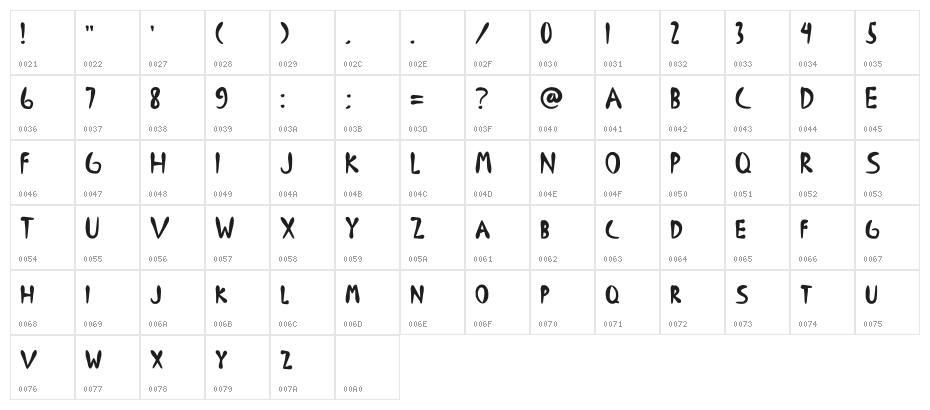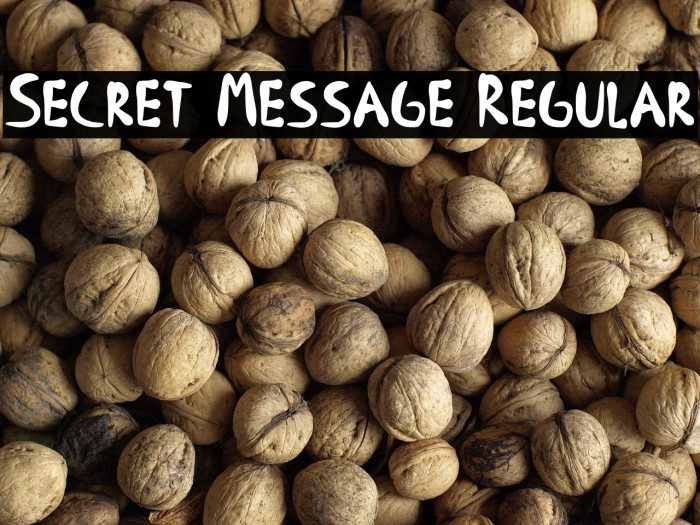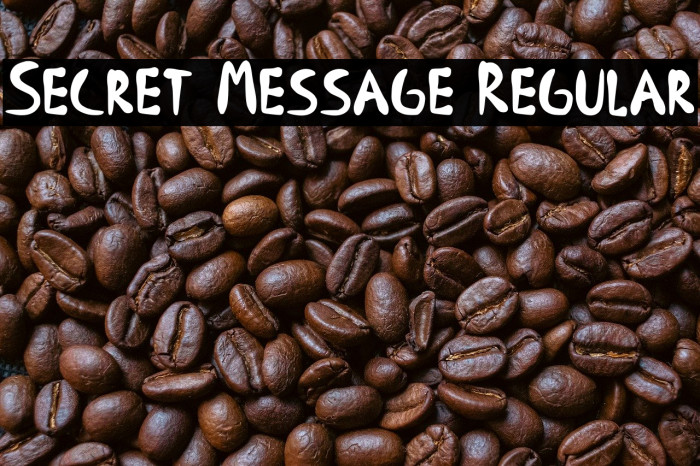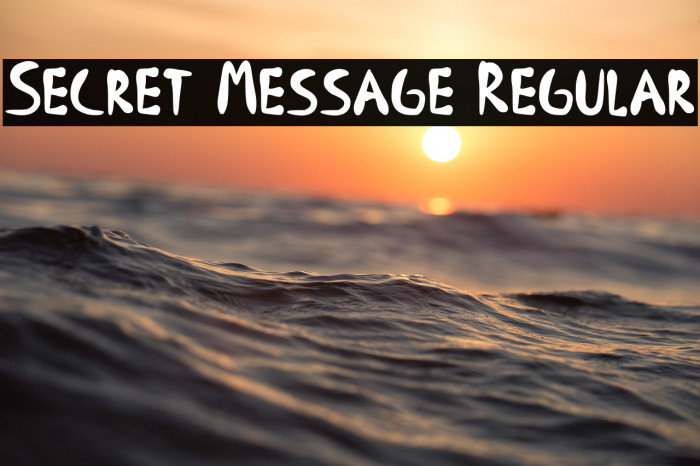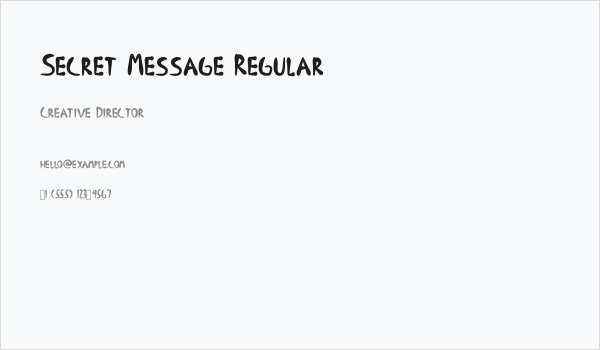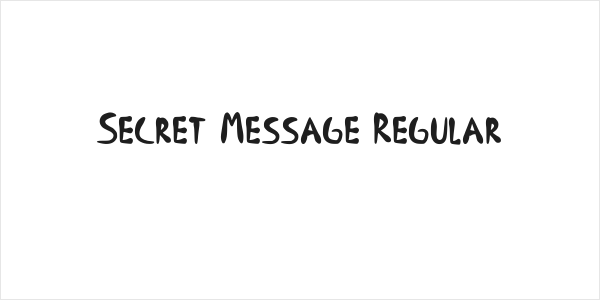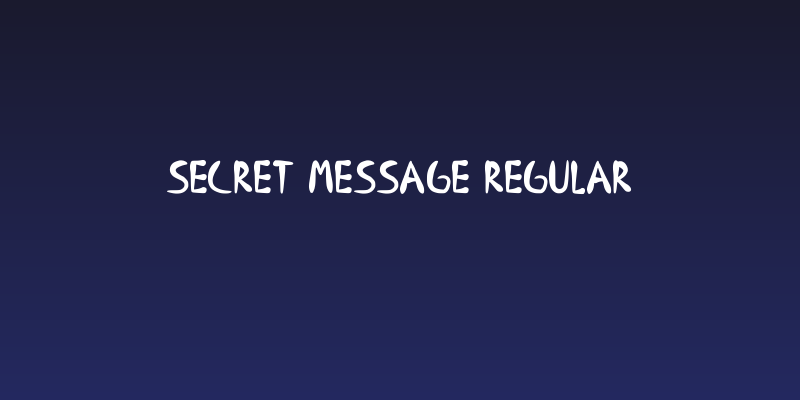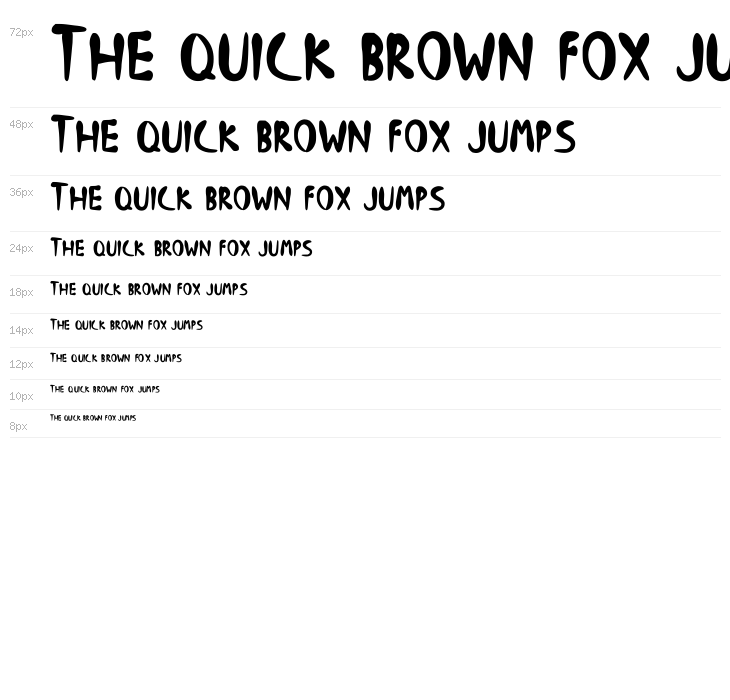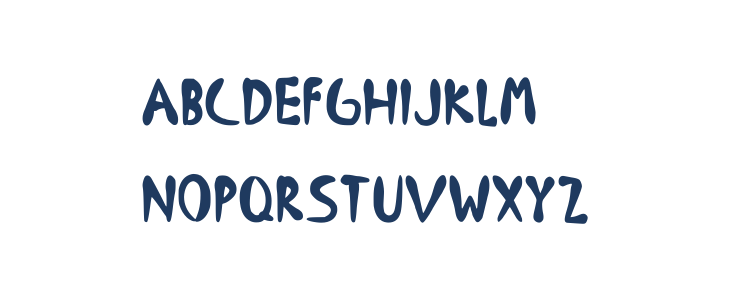
Secret Message Regular Font
Secret Message Regular Description
This font features a playful and casual handwritten style, characterized by its bold and slightly irregular strokes. The letters have a whimsical and informal appearance, making them suitable for creative and fun projects. The uppercase and lowercase letters maintain a consistent style, with rounded edges and a slightly uneven baseline that adds to its charm. The numbers and special characters follow the same playful aesthetic, ensuring a cohesive look across different text elements. The overall design is approachable and friendly, making it ideal for projects that require a personal touch.
| Proposed Projects | Ideal for greeting cards, children's books, playful branding, and informal invitations. |